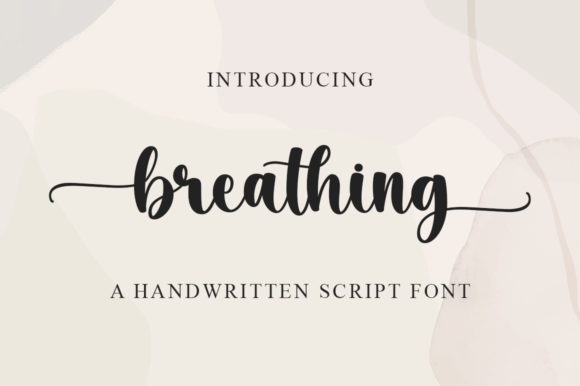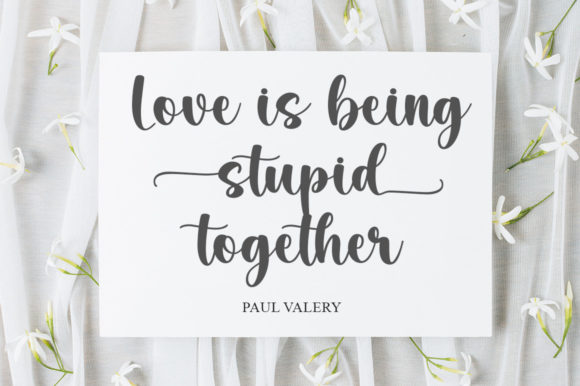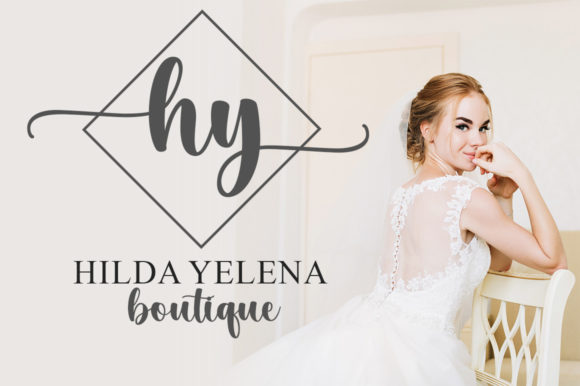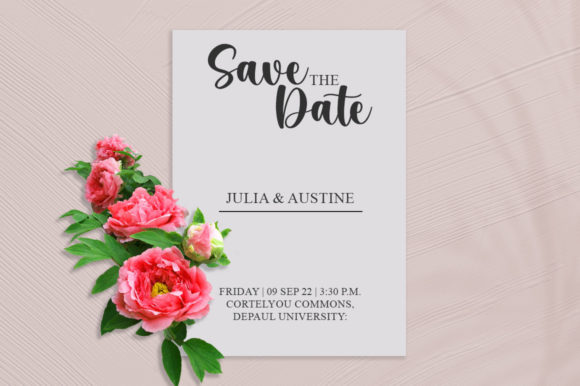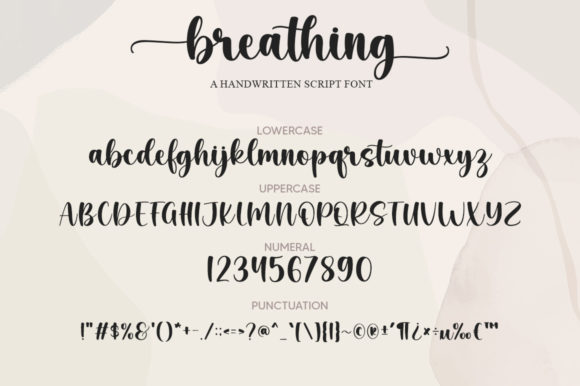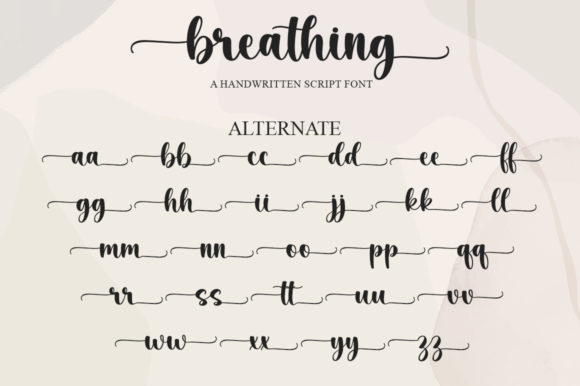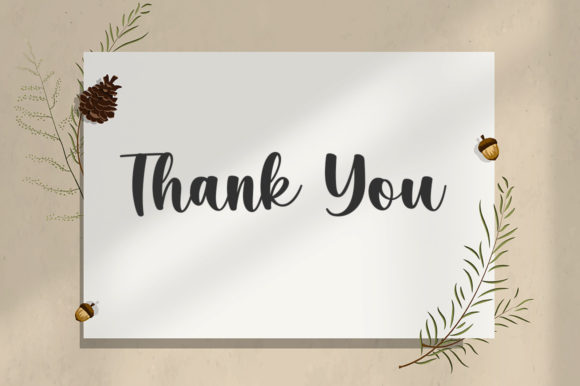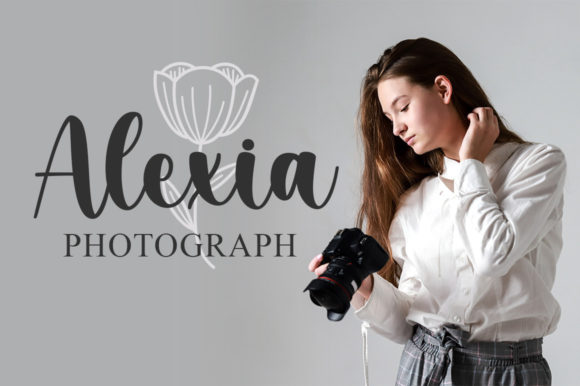
Breathing Font
About Breathing Font
Breathing is a delicate and refined script font that emanates sophistication and elegance. Its stylish alternates and ligatures make this font the perfect match for any project.